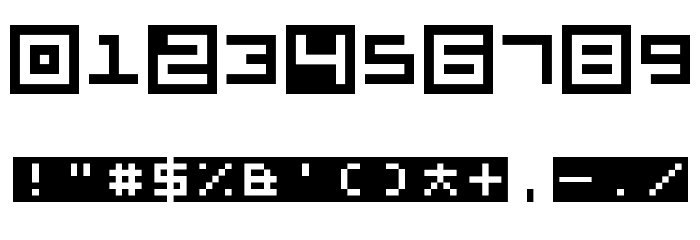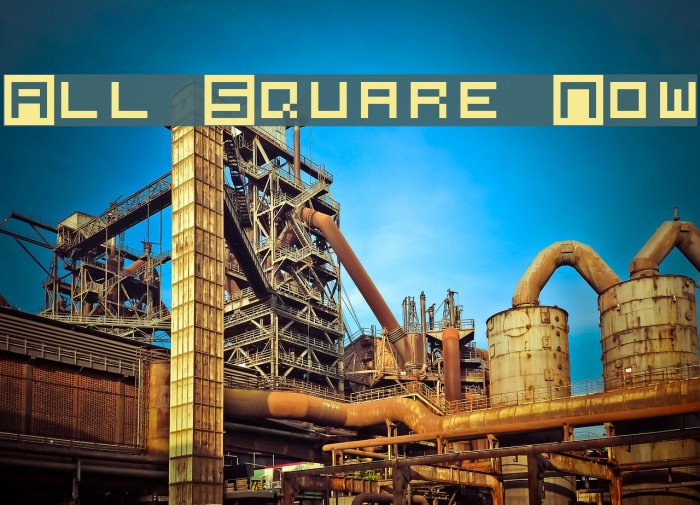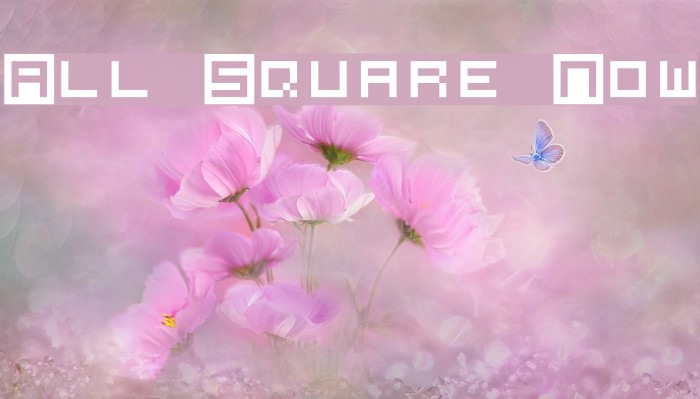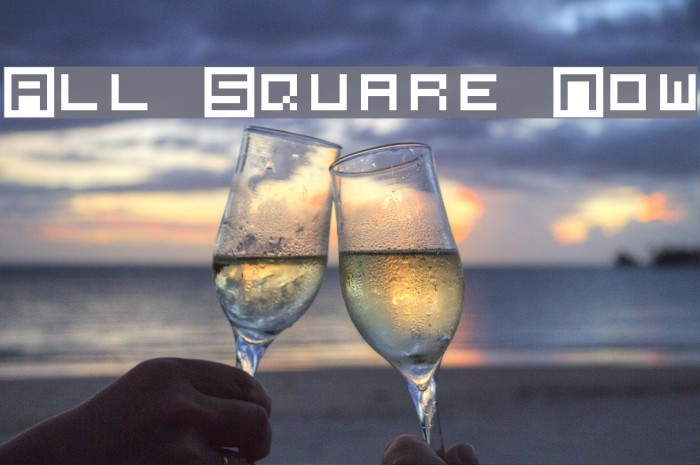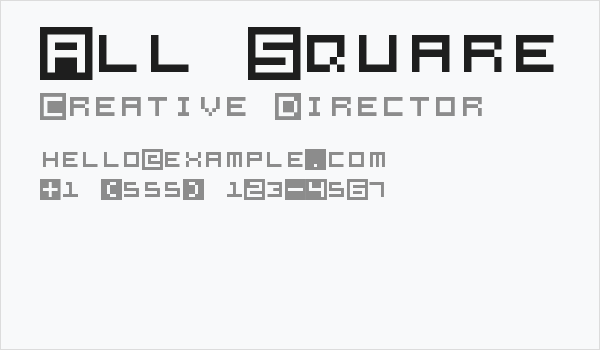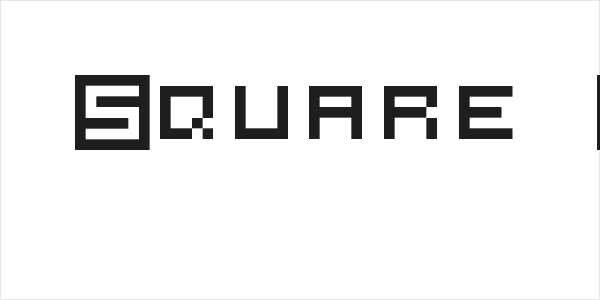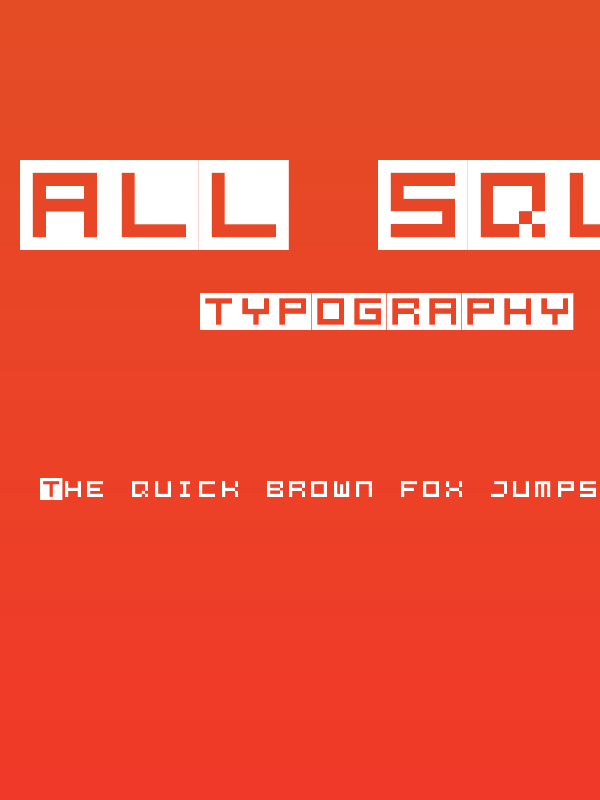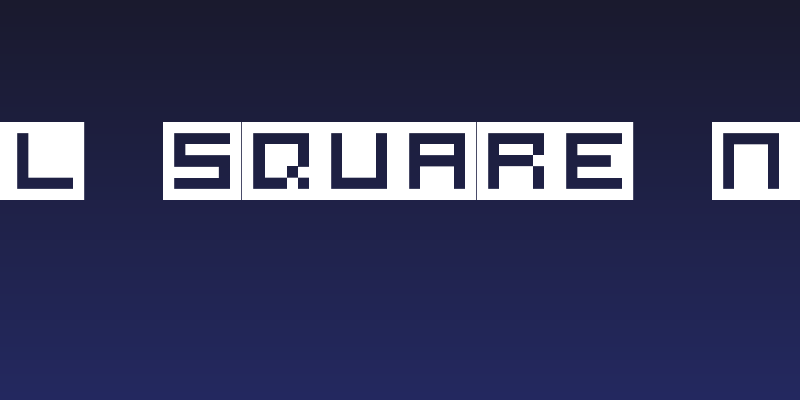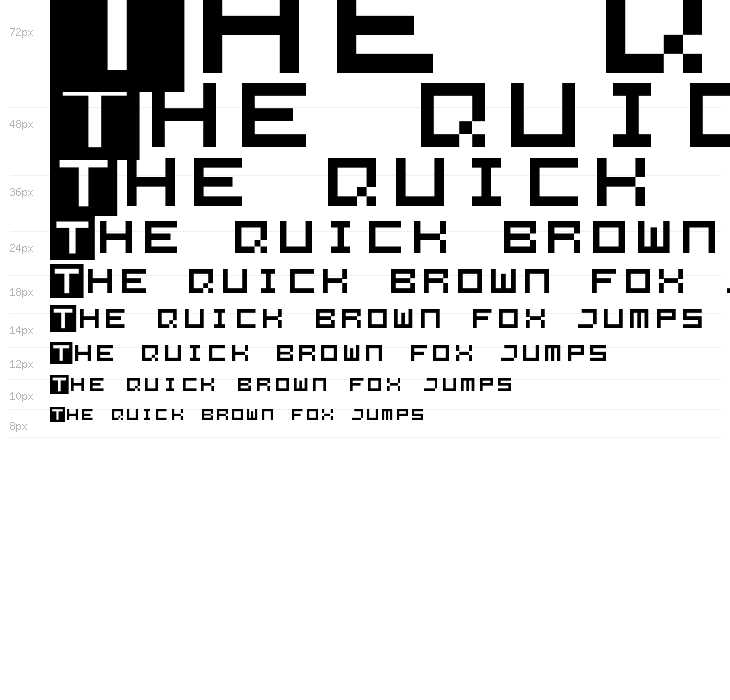
All Square Now Font
All Square Now Description
This font features a bold, geometric design with a distinctly digital and pixelated aesthetic. Each character is constructed using a grid-like pattern, giving it a blocky, square appearance. The uppercase and lowercase letters maintain a consistent height, contributing to a uniform look. The numerals and special characters follow the same structural design, ensuring cohesion across all glyphs. The font's style is reminiscent of early digital displays or retro video game graphics, making it ideal for projects that require a nostalgic or tech-inspired feel. Its strong, angular lines and uniform stroke width provide a sense of stability and modernity.
| Overall Style | Modern, Retro |
| Use Case | Headlines, Logos, Digital displays |
| Proposed Projects | Ideal for retro-themed designs, video game graphics, digital displays, and tech-related branding. |